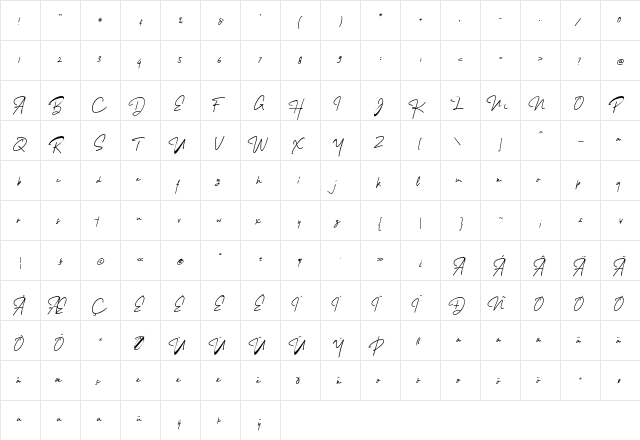
Melanic Black Script Regular
Regular · Wahyu & Sani Co Sani Sanjaya ·
Foundry Wahyu & Sani Co
DesignerSani Sanjaya
Design Context for Melanic Black Script Typeface
Melanic Black Script brings a calligraphic fluidity to the page — its connecting strokes and expressive curves give it an unmistakably human quality.
Font Pairing: Combine Melanic Black Script with a simple geometric sans for maximum contrast — the tension between flowing curves and clean structure is a classic typographic pairing.
Pro Tip: Use Melanic Black Script for short runs of text — names, titles, or taglines. Extended body copy in script faces tires the eye quickly.